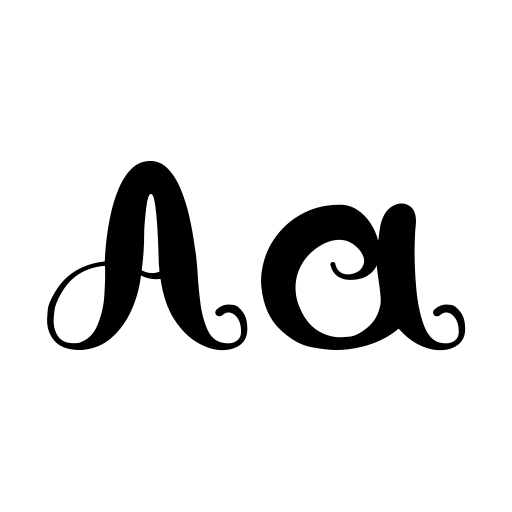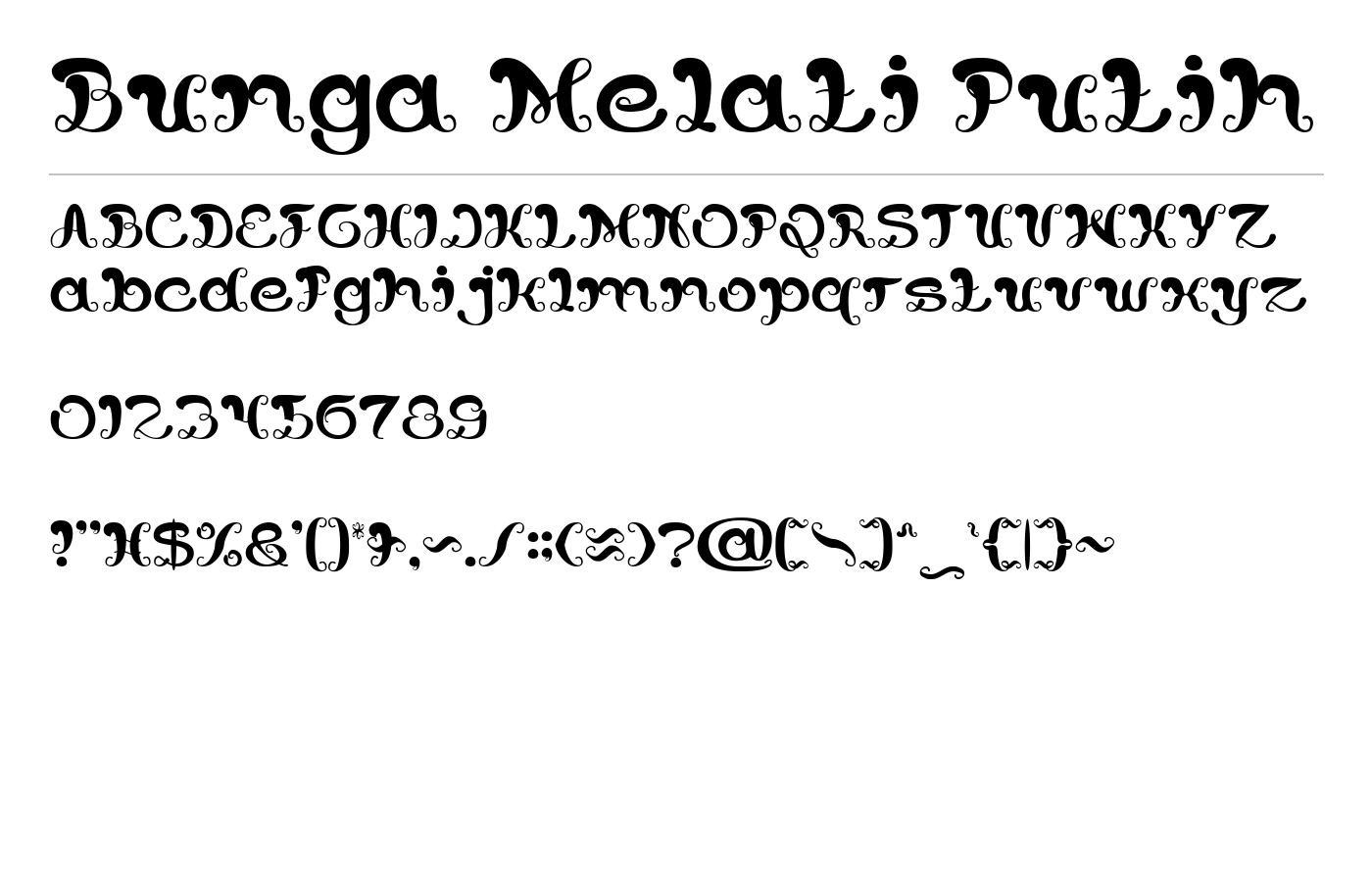
Bunga Melati Putih is a decorative serif font with playful, ornamental swirls and curls that give it a whimsical, artistic feel. Its moderate weight, balanced proportions, and unique letterforms make it ideal for creative branding, invitations, and display use where a fun yet elegant personality is desired. This font works best in headlines or logos that want to convey charm and individuality without sacrificing readability.
Bunga Melati Putih Font
About Bunga Melati Putih Font